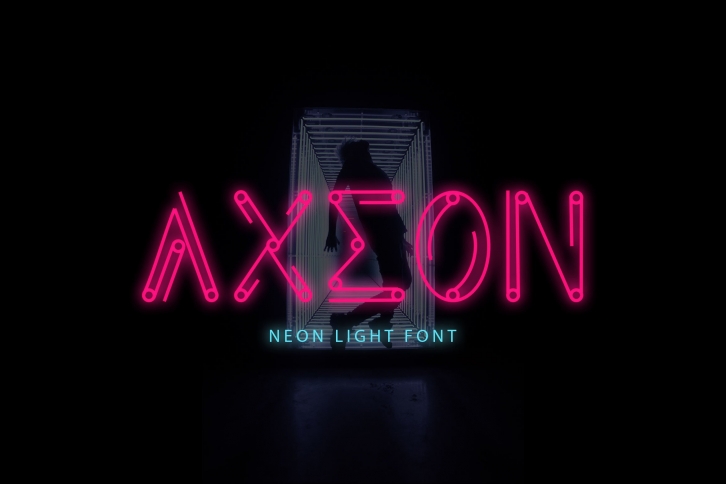
Axeon is a beautiful font that was designed by Rometheme. It's a great choice for designers and creatives who need such a font. It was released on October 25, 2019 and the file size is 7.87 MB. Axeon may give a more youthful, expressive and casual look to your project. It is a very beautiful, refined, elegant, and high-quality font.